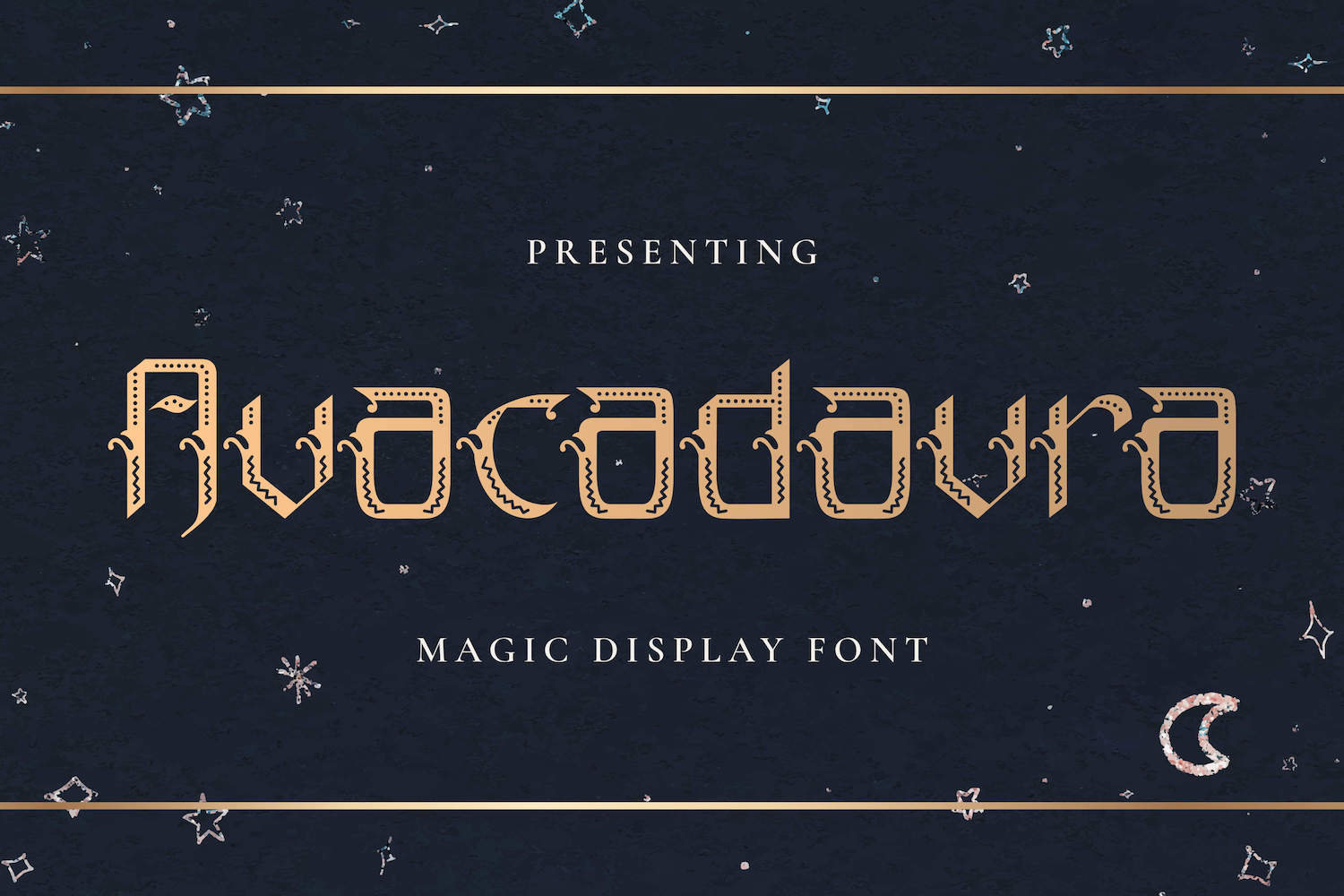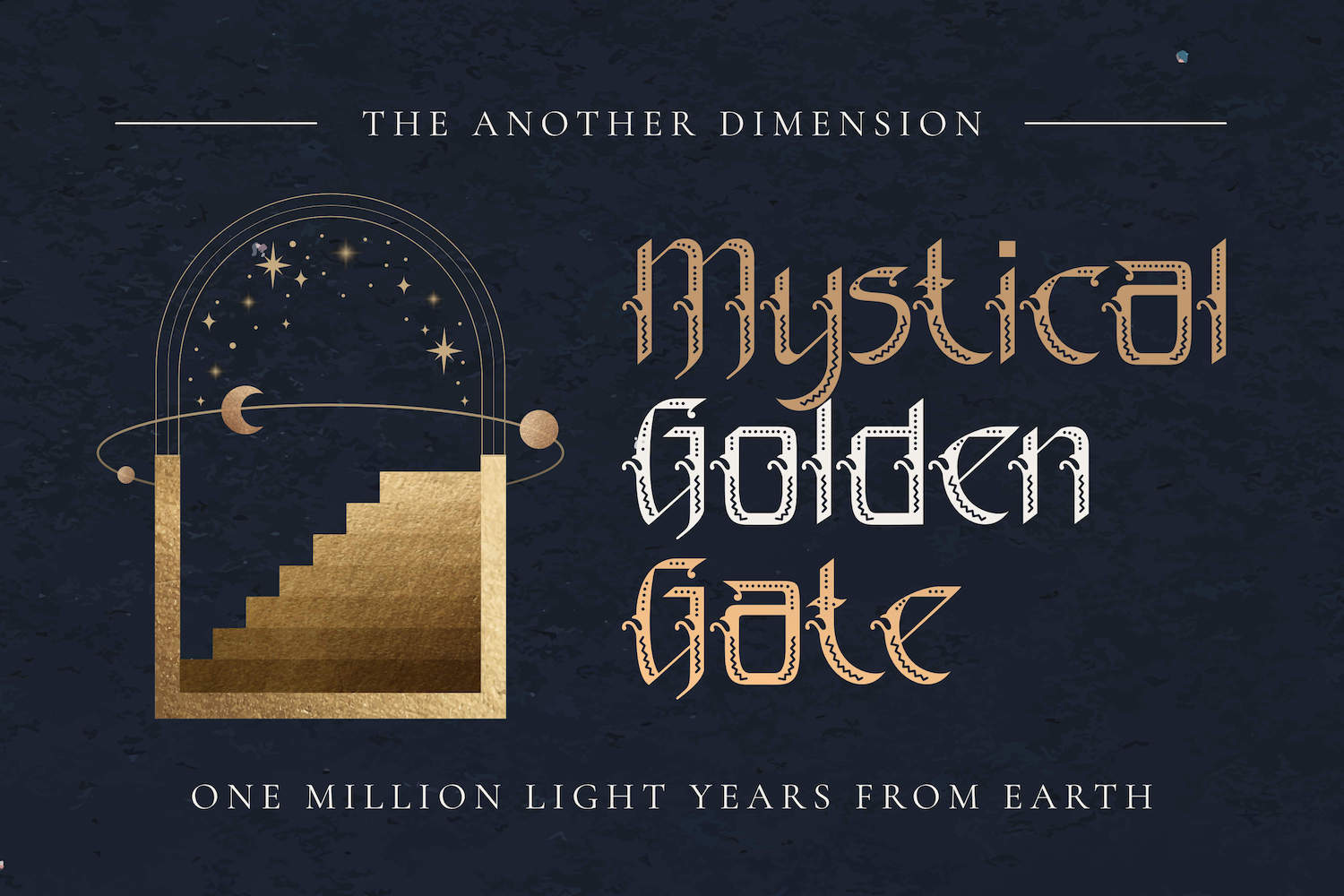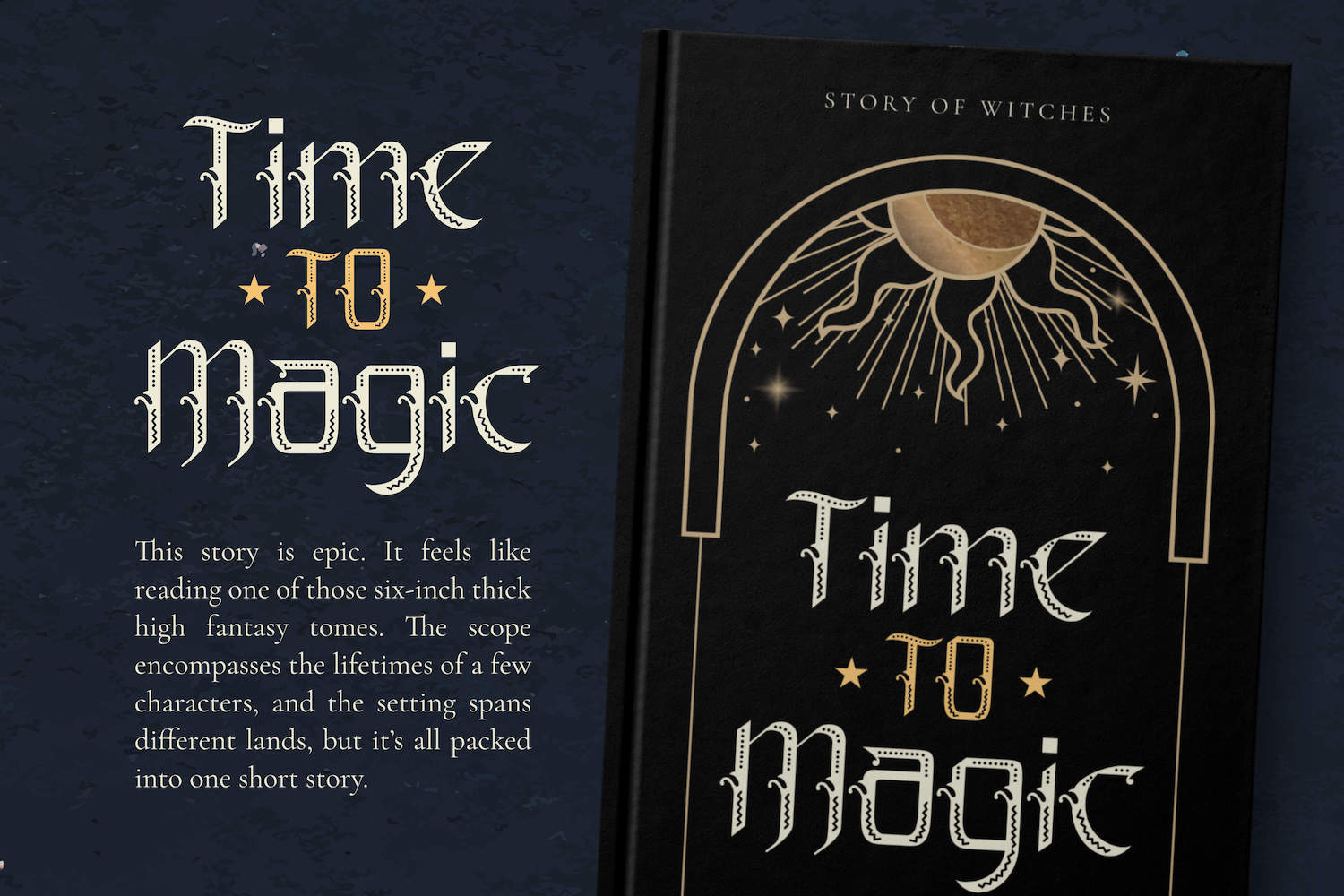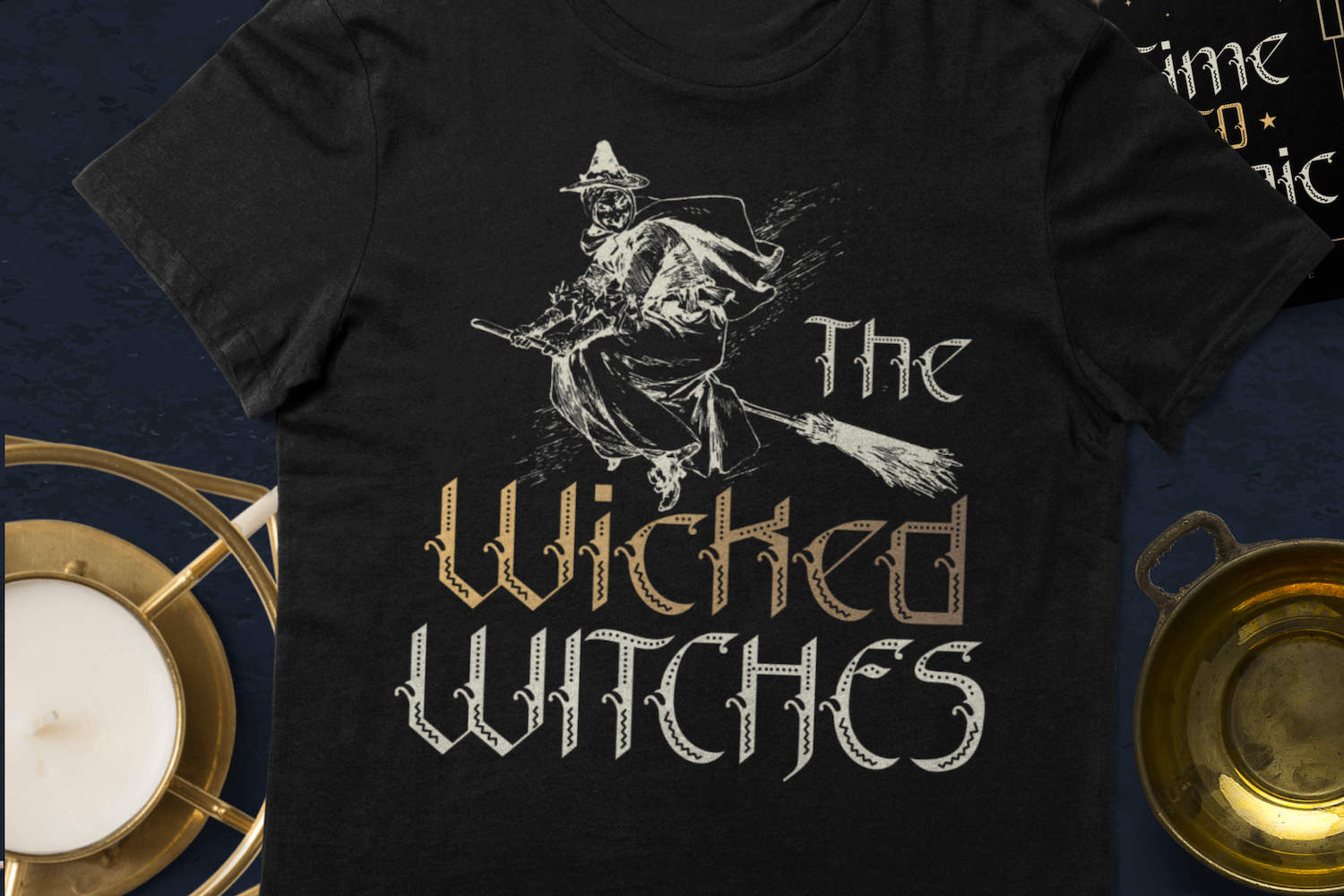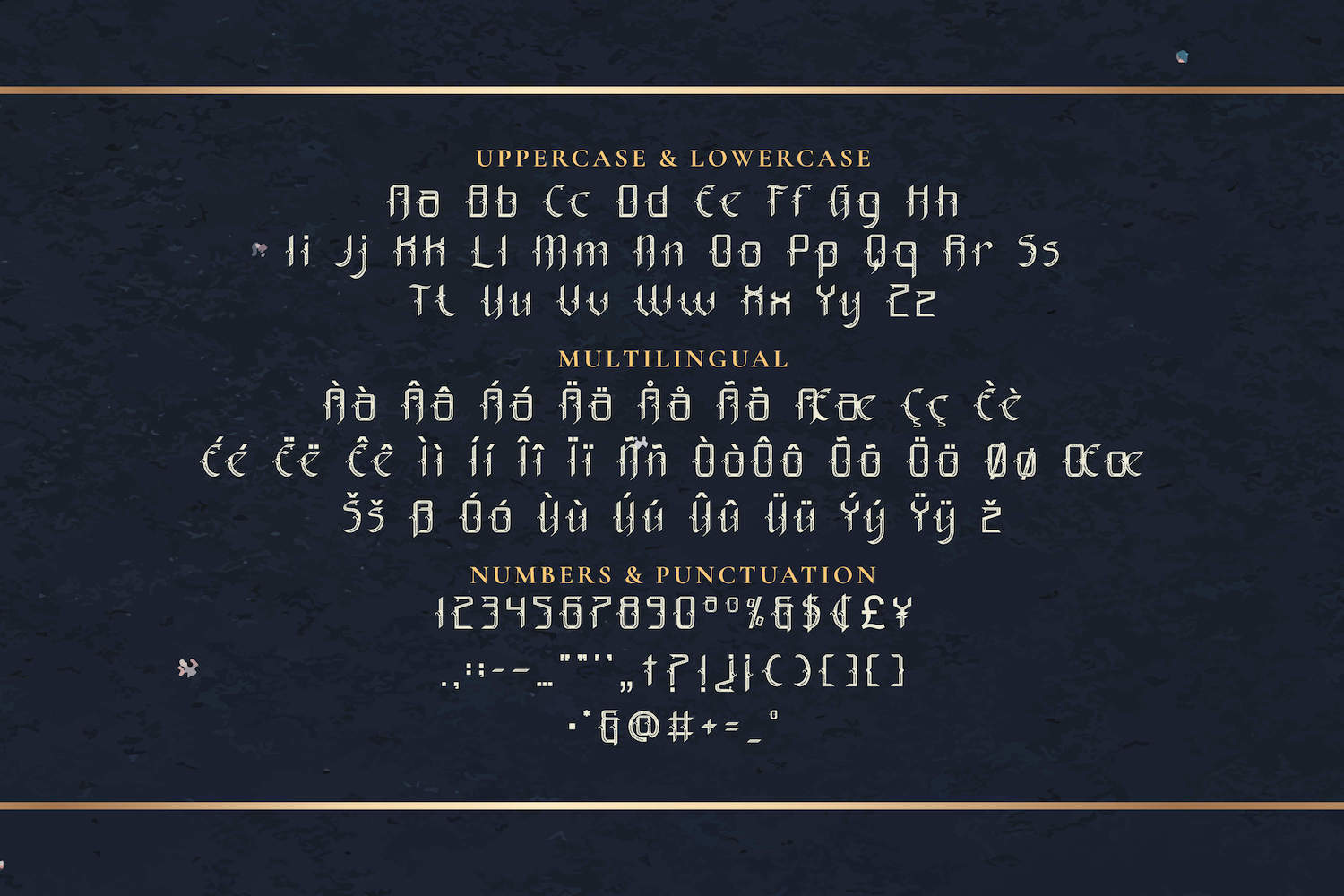
Avacadavra is a magical display font inspired by ancient runes and mystical aesthetics. With its ornate, otherworldly shapes and engraved decorative elements, this typeface captures the essence of fantasy and dark enchantment. It’s perfect for titles, posters, books, and branding projects that need a mysterious and spellbinding vibe.
Featuring uppercase and lowercase characters, multilingual support, and a complete set of numbers and punctuation, Avacadavra brings versatility along with its unique look. Ideal for projects related to witchcraft, mythology, fantasy novels, magical products, or Halloween-themed designs.
Avacadavra